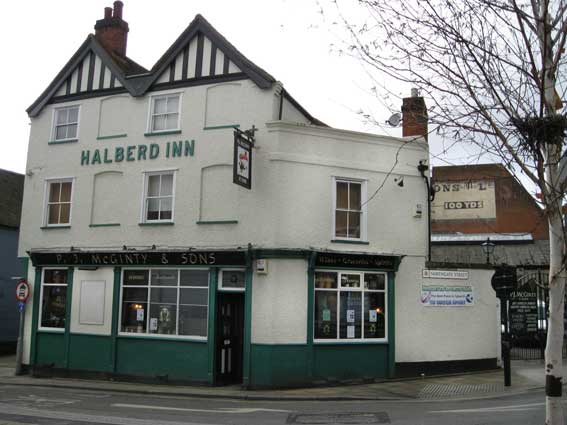
'Egertons (Ipswich) Ltd' & The Halberd Inn
Above: the Egertons sign photographed from Tower Ramparts, alongside The Halberd Inn (which features further down this page), now called P.J. McGinty's & Sons. This sign is on the back wall of the former Yates' public house, and is one of the most familiar (and redundant) signs to Ipswichians.
[UPDATE 2009: remarkably, this public house is now called The Robert Ransome in memory of one of the town's most famous industrialists, the building, once housing Barnes Furnishing, which moved here from Upper Orwell Street, has been refurbished and is owned by Wetherspoons as is the nearby Cricketers.]
EGERTONS (IPSWICH) LTD
BP                         100 YDS
This somewhat enigmatic sign promises something 100 yards away on Crown Street, without saying quite where. Presumably Egertons (Ipswich) Ltd, their sign sponsored by British Petroleum, knew that passers-by would find them if they'd got that far. The premises referred to once stood on the site further down Crown Street on the right, past The Cricketers Hotel (once The Town House, a 'Tolly Folly' designed by architect John Shewell Corder (see also his work on Scarborow), and built by Marriott's in the 19th century to emulate the architectural style of Helmingham Hall, fact fans!) on the site of the current Crown Pools.
The above 1962 photograph shows the extensive Egerton's showrooms and works on the right of Crown Street, Electric House straight ahead with the chimney and corsetry works of Footman Pretty behind, with open car parking occupying the present site of Tower Ramparts bus station.
[UPDATE 15.3.2015: "I refer to the photographs on your page in which you show Tower Ramparts car park with Electric House and a Large Building on the right hand side as being Mann Egerton. This is incorrect; the building is Egertons Ipswich Ltd. Which was built, I believe, by my Grandfather, Justin Reginald Egerton (Reggie). My Father, Justin C. Egerton, was a director until his death. My Grandfather sold the business to the Lex Group in the early 60s, just before my father's death. Regards, Charles W. Egerton." Many thanks to Charles for pointing out this loose use of company language ("Egertons" / "Mann Egertons" – now corrected; it is always good to hear from a descendant of one of the well-known Ipswich names. See also the Shortis shop sign in Woodbridge Road.]
[UPDATE 21.12.2013: John Bulow-Osborne writes: "I arrived just too late to snap Egertons Garage because, as you will note, the lettering had already been removed by the demolition contractors. Which fact may render the photos unsuitable for your purposes.
To judge from the vehicles to be seen, (all but one is British!), I would put the date around the late seventies. You will be aware that a market occupied the site for some time prior to the construction of the Crown Pools." Thanks to John for these excellent images of a building which radically altered the townscape here from that we know today.]
The lettering removed from the long blue strip above first floor level reads:
'[TRU]CK SERVICE RECEPTION ... BEDFORD TRUCKS ...  EGERTONS SERVICE LTD. ... VAUXHALL CARS ... CAR SERVICE RECEPTION'
Above right: 'BP SERVICE' is still visible on the angled corner, next to building's neighbour: the 'Tolly Folly' which bears its original name 'The Cricketers Hotel' (soon to be renamed 'The Town House' once Egertons was demolished. What strikes us is the scale of this three-storey, cream-white structure. The build up to the pavement would only emphasize the dramatic gap left in the townscape once it was demolished.
[UPDATE 2.10.2021: Following one of Borin's talks at The Felixstowe Society, Peter Finbow got in touch to say that, having been born and brought up in Ipswich, he has a recollection that the 'Egertons - BP – 100yds' sign shown above referred specifically to a small petrol filling station within the large Egerton's works in Crown Street. The close-up of the above photograph shows The Cricketers public house on the right with William Street (now a pedestrian walkway to a car park) running off Crown Street. On the opposite corner is the easternmost part of Egerton's works with a tight drive-through behind the pillars at ground level. He believes that this small petrol outlet was the destination referred to as 'BP – 100yds' on the rear of the Yates building, although it was accross the street for drivers heading west on Crown Street. The sign above the 45-degree section reads 'BP SERVICE'; also the pillar/support to the right of the lamp-post carries vertical marks below the blue-painted board. The above rather grainy monochrome photograph from 1962 clearly shows the projecting, illuminated 'BP' sign in this position.
Thanks to Peter for this memory; he used to ride past this area as a Post Office telegram motorcycle delivery boy – younger readers might need to look up the word 'telegram'. Incidentally, while the building awaits destruction, there are still two or three cars parked within and a figure or two, plus the 'No parking' sign on the ground at the exit to the right.
A similar deco Egertons structure occupied the triangular site at the junction of St Margaret's Street and Woodbridge Road (
Major's Corner – see Street name derivations) until the 1980s, with a ramp for vehicles from Woodbridge Road running up to the upper level, parts department, service centre and showrooms. Situated on the north side of Major’s Corner was Botwood’s Garage, built in 1923, on the site of Major’s House and the adjacent Admiral’s Head pub. Botwood’s were carriage builders during the second half of the 19th Century and amalgamated with Mann Egerton in 1910. The Majors Corner building was partially demolished to make way for the now-redundant Odeon Cinema (1991-2005); the remainder facing Woodbridge Road had been used as a furniture shop and car dealership but is now demolished to make more parking space between the cinema and the Regent. They also traded in agricultural machinery from Princes Street, near the Greyfriars roundabout and had a lawnmower dealership on one of the newer industrial estates. However, the 'Motor Works' lettering (bottom of this page) confirmed that the company once occupied the old Assembly Rooms in Northgate Street.